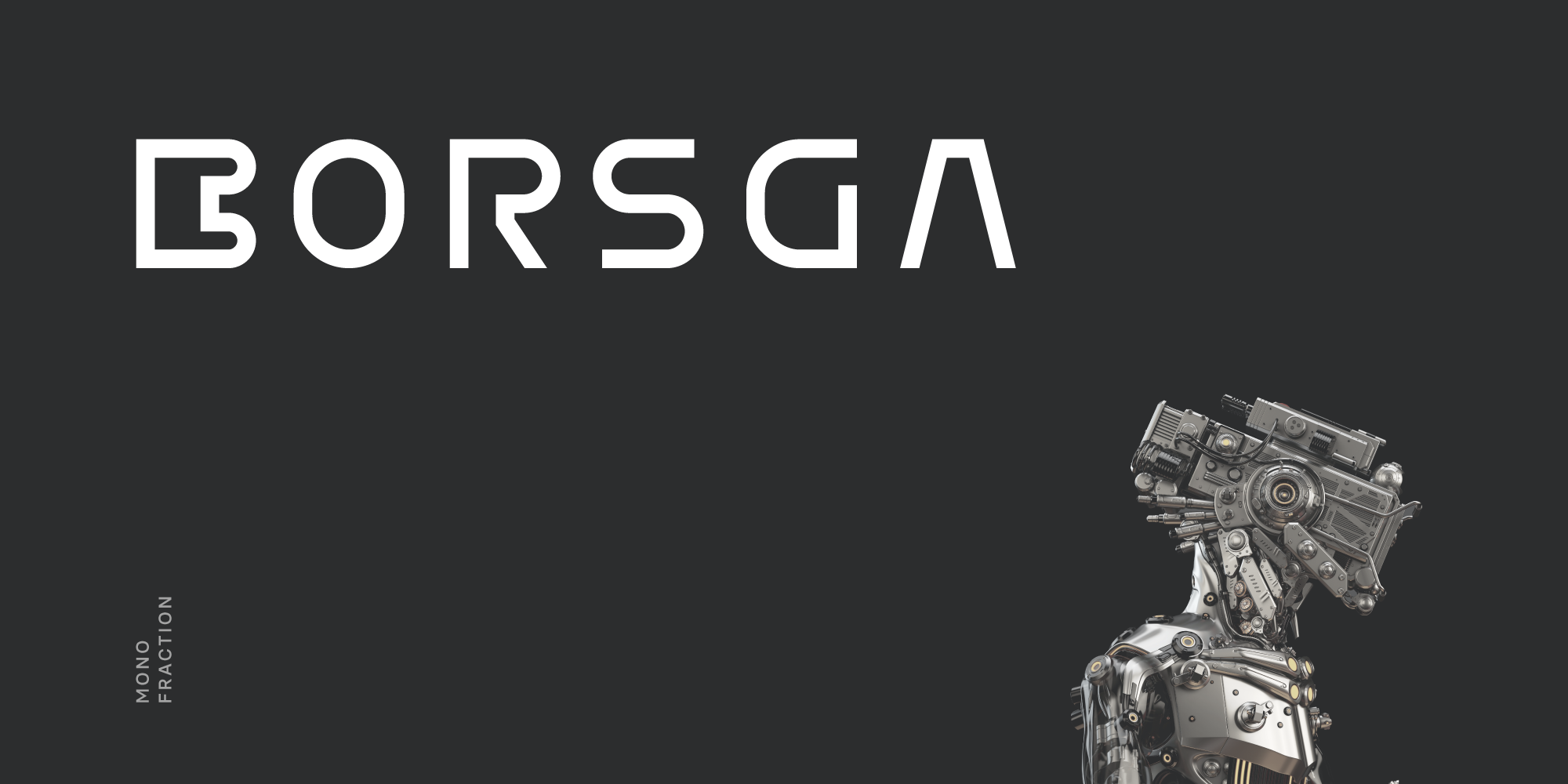
Borsga Font is perfect for a wide range of design applications including financial institution branding, investment firm logos, corporate banking signage, professional consulting materials, law firm identity systems, executive business presentations, high-end real estate marketing, luxury financial services, distinguished corporate communications, and authoritative editorial layouts.
What makes Borsga Font exciting is its commanding authority and institutional gravitas that perfectly captures the established credibility and professional excellence of traditional financial institutions and corporate leadership. This distinguished typeface brings a sense of trustworthy stability and executive presence to any project with its powerfully crafted letterforms that showcase bold structure and confident character construction reminiscent of banking architecture and corporate authority. The font's substantial character shapes and commanding proportions create an atmosphere of financial strength and institutional reliability that resonates with audiences seeking security, expertise, and professional competence, making it an ideal choice for brands emphasizing financial stability, corporate leadership, and institutional trust.
The Borsga Font family includes multiple weights and styles designed to accommodate various corporate and financial design requirements. The collection typically features regular, bold, condensed, and extended variations, each maintaining the font's signature authoritative aesthetic while providing comprehensive design flexibility. Additional financial symbols and corporate ornaments enhance the family's creative potential for business-focused design projects.
This premium Borsga Font Free Download represents an exceptional opportunity for designers to explore corporate typography trends with authentic institutional appeal. The font's innovative approach incorporates traditional financial design principles and contemporary corporate aesthetics that bring genuine business authenticity to modern financial and professional service projects. Its versatile nature makes it suitable for both digital applications and print materials, ensuring consistent brand representation across financial, corporate, and professional sectors.
Professional designers appreciate Borsga Font's exceptional authority and comprehensive character support. The font includes extensive punctuation marks, numerical figures, financial symbols, and international language capabilities, making it perfect for global financial institutions and international corporate projects. Its professionally optimized spacing and kerning ensure professional results in corporate branding, financial communications, and executive marketing applications.
The enduring recognition of Borsga Font in the business community reflects its ability to enhance institutional credibility and create powerful visual communications that convey financial strength and corporate excellence. Whether used for banking institution branding, financial service materials, or corporate creative projects, this font delivers outstanding results that celebrate the tradition of financial stability and professional authority.